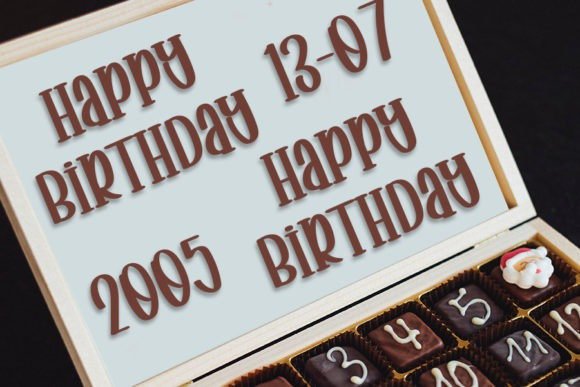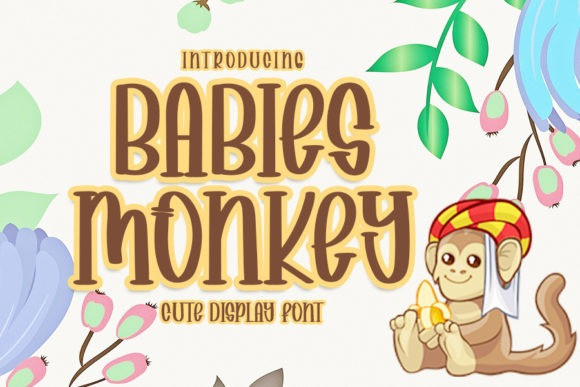
Babies Monkey Font
Babies Monkey Font is a fun handwritten font. Get inspired by its unique look and create amazing postcards, fun logos, and cute stationery!